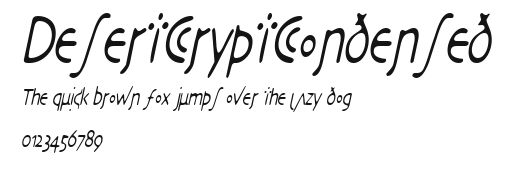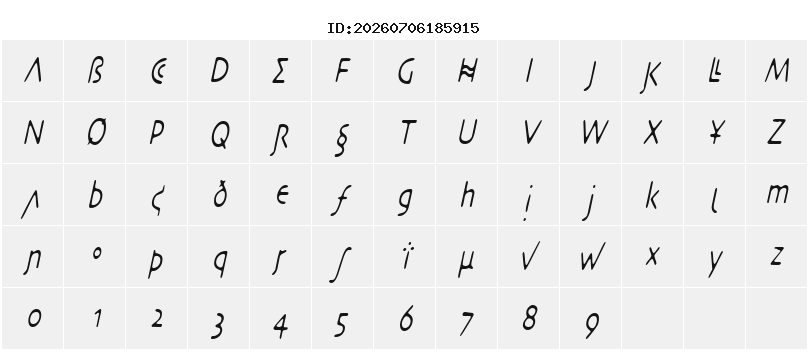
About DesertCryptCondensed.ttf
DesertCryptCondensed.ttf is a modern, elegant sans-serif font designed for ultimate readability and visual harmony. Perfect for branding, headlines, web design, and print materials.